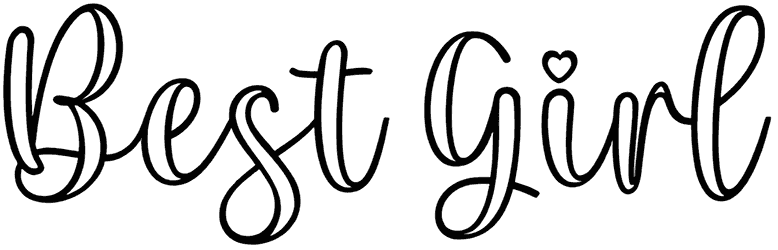
Best Girl Font
Yeah… big surprise! You just found Best Girl, the best font for your girly designs. What gave that away?! It’s not like it’s so clearly mentioned in the font name, right? Just kidding… It was a fair hint, and you deserved it.
As long as you have fun with Best Girl and make sure it fulfills its destiny as a cosmetic shop poster, printed designs on girly shirts, or something that calls for a heart font like romantic-themed projects, it’s fine.